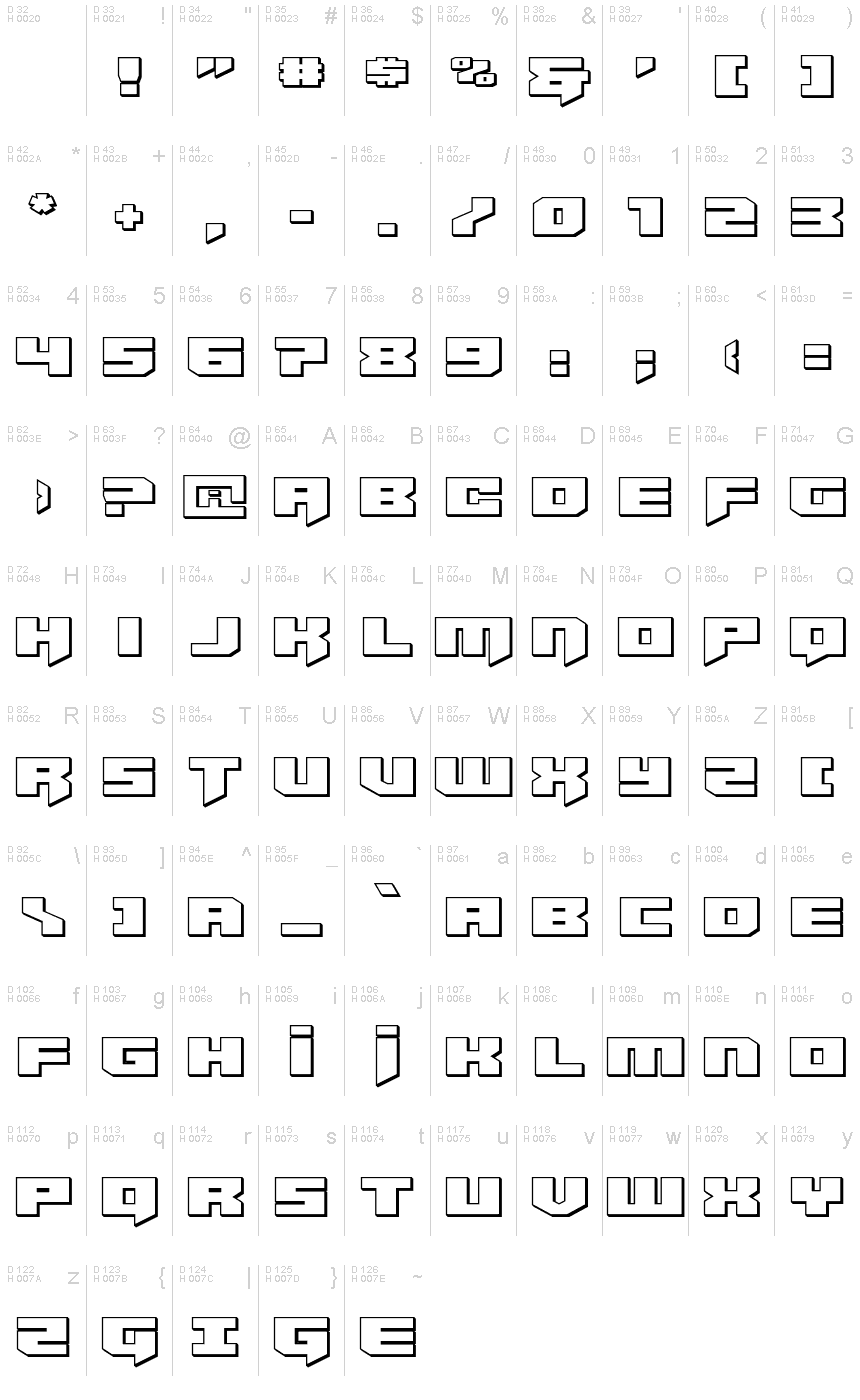
Bridge OFFicer Straight 3D
Bridge Officer Straight 3D, from the Bridge Officer font family designed by Iconian Fonts, presents a bold statement in the realm of display typography. This extra-bold, extra-expanded typeface commands attention with its techno style, characterized by precise geometric construction and a futuristic edge. The 3D aspect of the font adds depth and dimension that can elevate any design.
Crafted with an eye for cutting-edge aesthetics, Bridge Officer Straight 3D exudes strength and modernity. Its sharp angles and clean lines make it perfect for titles, headers, and any project that requires a touch of sci-fi sophistication or technological flair.
Whether you're designing for video games, movie posters, or tech-related branding projects, this typeface is versatile enough to adapt to various creative needs while maintaining its distinct personality. The assertive appearance of Bridge Officer Straight 3D makes it an excellent choice for conveying power and innovation in your designs.